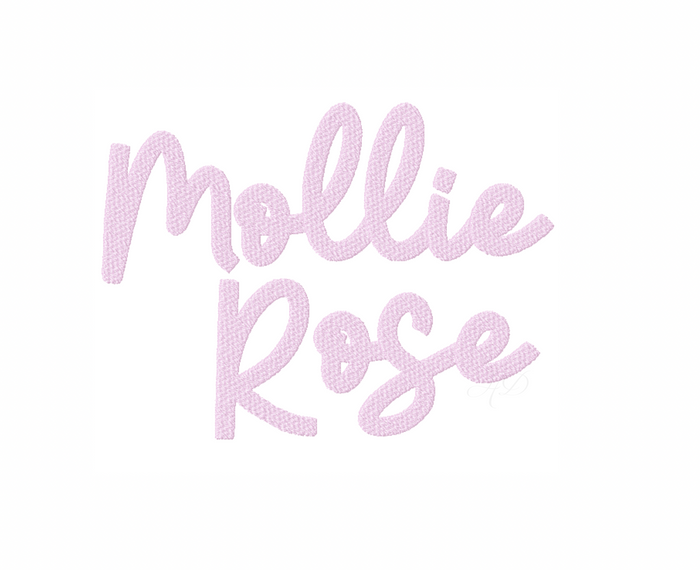
4x4 Mollie Rose Embroidery Font Package
Unleash your creativity with the 4x4 Mollie Rose Embroidery Font Package, designed specifically for crafters and DIY enthusiasts. This unique package includes a two-color satin stitch embroidery font featuring uppercase letters A-Z, numbers 0-9, and an elegant accent dot, ideal for adding a personalized touch to your projects.